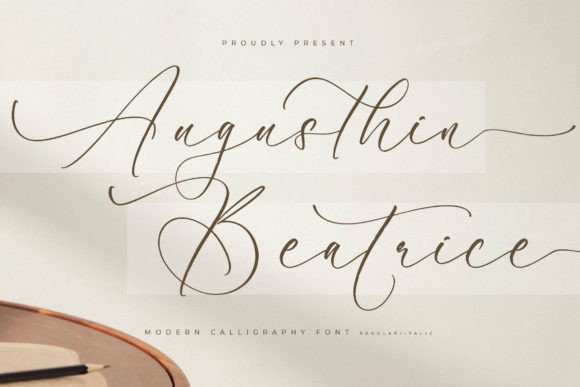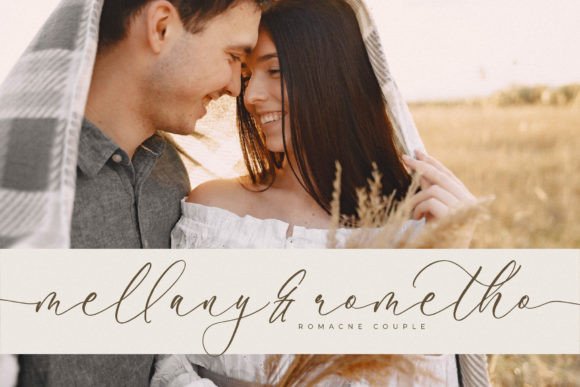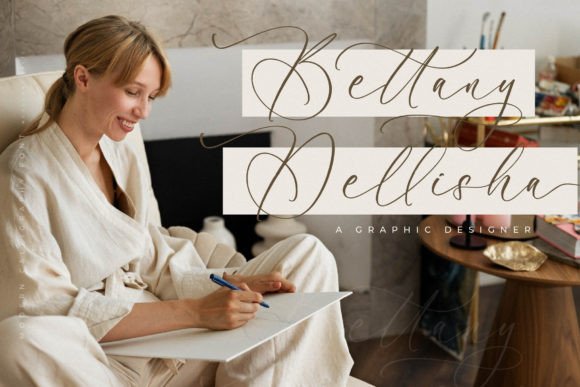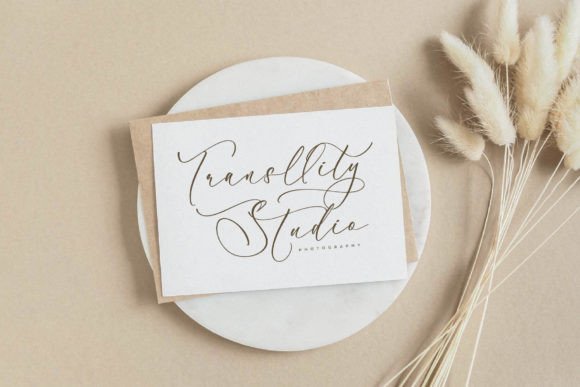
Augusthin Beatrice Font
About the Augusthin Beatrice Font
The Augusthin Beatrice Font is here to transform your projects with its distinctive character and style. Augusthin Beatrice – Modern Calligraphy Font, from Letterena, is a Luxury Script font, suitable for any projects such as: logos, branding projects, homeware designs, product packaging, mugs, quotes, posters, shopping bags, t-shirts, book covers, name card, invitation cards, greeting cards, label, photography, watermark, special events, and all your other luxury and beautiful projects that need a Luxury serif taste.
Augusthin Beatrice’s elegant, slightly-formal personality makes it ideal for luxury branding, high-end product packaging, and sophisticated invitations. It excels in headlines, short text blocks, and logo design, lending a touch of classic refinement. However, its delicate stroke weight isn’t suitable for body text or UI elements where readability is paramount; smaller sizes become difficult to decipher.
Pairing Augusthin Beatrice with a clean sans-serif like Montserrat for body copy creates a balanced and refined aesthetic. For a more playful feel, consider pairing it with a geometric sans-serif such as Futura. Alternatively, a classic serif like Garamond offers a harmonious and traditional contrast.
The font’s overall mood is sophisticated and refined, best suited for brands conveying luxury, exclusivity, or timeless quality. Avoid using it in contexts requiring a bold or informal tone.
Augusthin Beatrice Font Usage Examples
Augusthin Beatrice Font Example